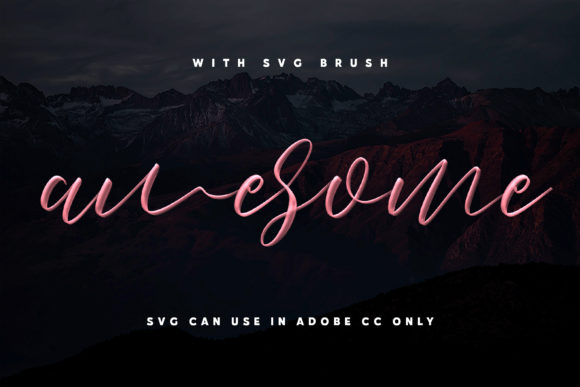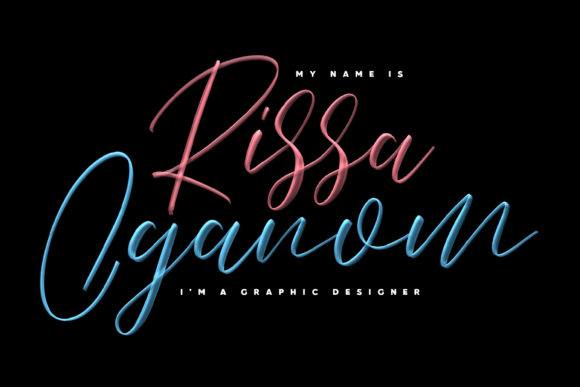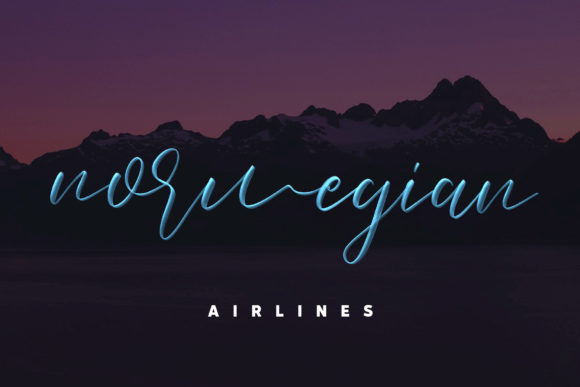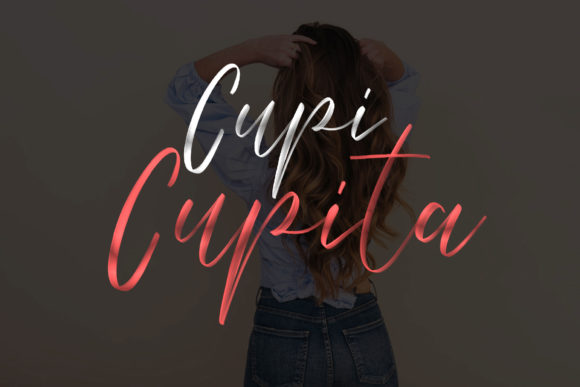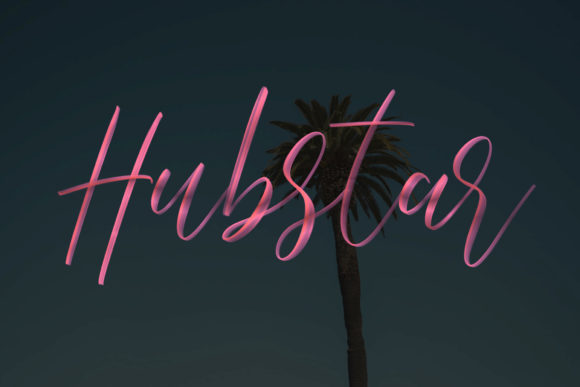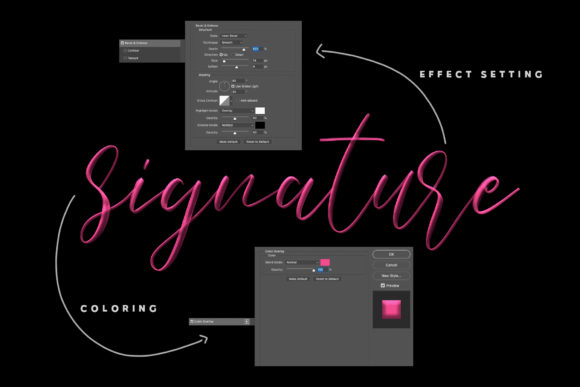
Introduction to Love Brush Font
Love Brush is a stunning and bold handwritten font with a romantic twist.
It will add a unique spark to any design project .
Key Features of Love Brush Font
Why Choose Love Brush Font?
Love Brush Font offers exceptional quality and versatility, making it a valuable addition to your design toolkit. Whether you’re creating for personal projects or commercial use, Love Brush Font delivers professional results.